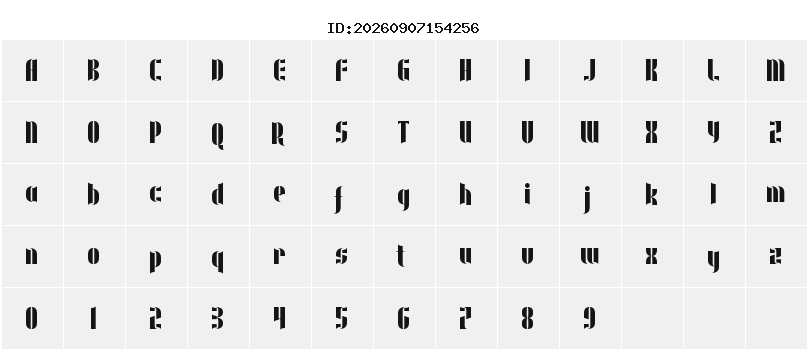
• Font Name: Underwear Protest
• Full Font Name: Underwear Protest
• Version: Version 1.00 March 1, 2016, initial release
• Designer: AM
About Underwear Protest.otf
Underwear Protest.otf is a modern, elegant sans-serif font designed for ultimate readability and visual harmony. Perfect for branding, headlines, web design, and print materials.